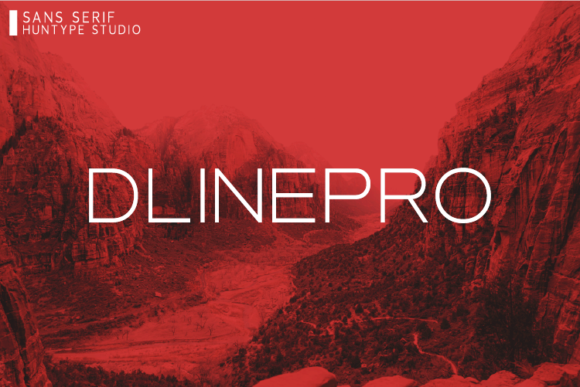
Introducing Dlinepro Font: The Ultimate Typographic Weapon for Crafting Captivating Magazines!
In the world of magazine publishing, typography reigns supreme. It holds the power to transform ordinary words into captivating stories, elevate designs to new heights of sophistication, and leave a lasting impression on readers. Unleash the boundless creative potential of Dlinepro Font, the ultimate typographic weapon for crafting magazines that demand attention.
Dlinepro Font, a modern and clean sans serif masterpiece, is the brainchild of Huntype, a renowned foundry renowned for its exquisite typographic creations. Its smooth and clean lines, enhanced by a touch of contrast, instill a sense of elegance and professionalism that is simply irresistible. Whether you're designing a fashion magazine, a travelogue, or a thought-provoking journal, Dlinepro Font will effortlessly elevate your content to new heights of visual appeal.
From captivating logos that grab attention to branding that exudes confidence, Dlinepro Font performs flawlessly in a myriad of applications. Its versatility shines in web headings, where it commands attention with its bold and distinctive presence. Whether you're aiming for a minimalist aesthetic or a more elaborate design, Dlinepro Font seamlessly adapts, becoming an integral part of your creative vision.
Experience the transformative power of Dlinepro Font today and unlock a world of typographic possibilities. Dive into the realm of captivating magazine design, where words dance with grace and elegance, leaving an indelible mark on the minds of your readers. Embrace Dlinepro Font, the key to unlocking your magazine's true potential.